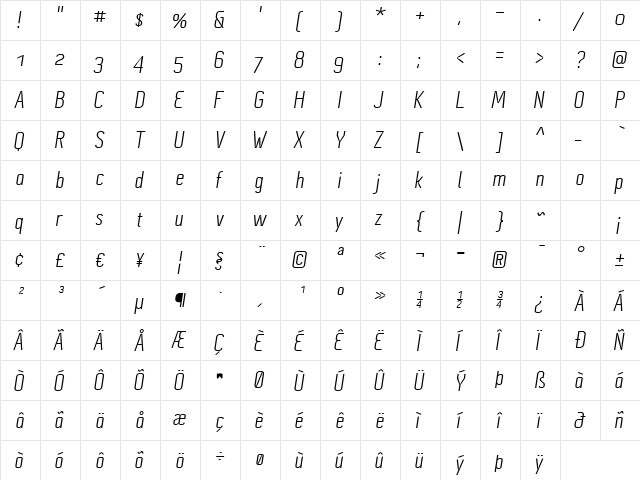
Cynapse Pro OSF Italic
Design Context for Cynapse Pro OSF Typeface
Cynapse Pro OSF offers clean, dependable letterforms without strong stylistic allegiance, making it a practical choice for designers who need flexibility. The dynamic lean of this cut emphasises speed and emphasis in any layout.
Pro Tip: Use Cynapse Pro OSF for emphasis, pull quotes, and subheadings where its slanted energy can add rhythm to the layout.